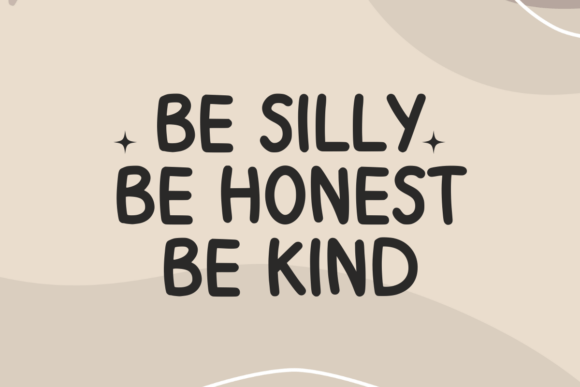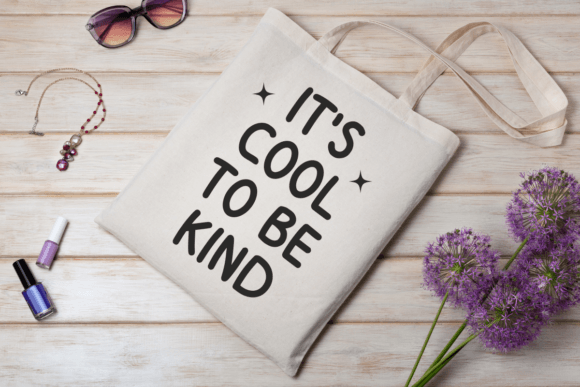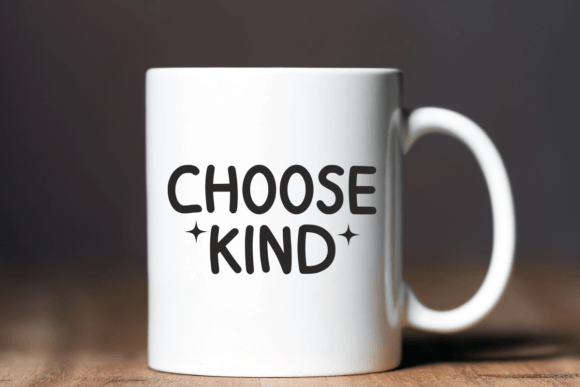
Introduction to Kids Kind Font
Kids Kind is a cute and playful handwritten font.
Whatever the topic, this font is perfect for your creative craft needs .
Key Features of Kids Kind Font
Why Choose Kids Kind Font?
Kids Kind Font offers exceptional quality and versatility, making it a valuable addition to your design toolkit. Whether you’re creating for personal projects or commercial use, Kids Kind Font delivers professional results.